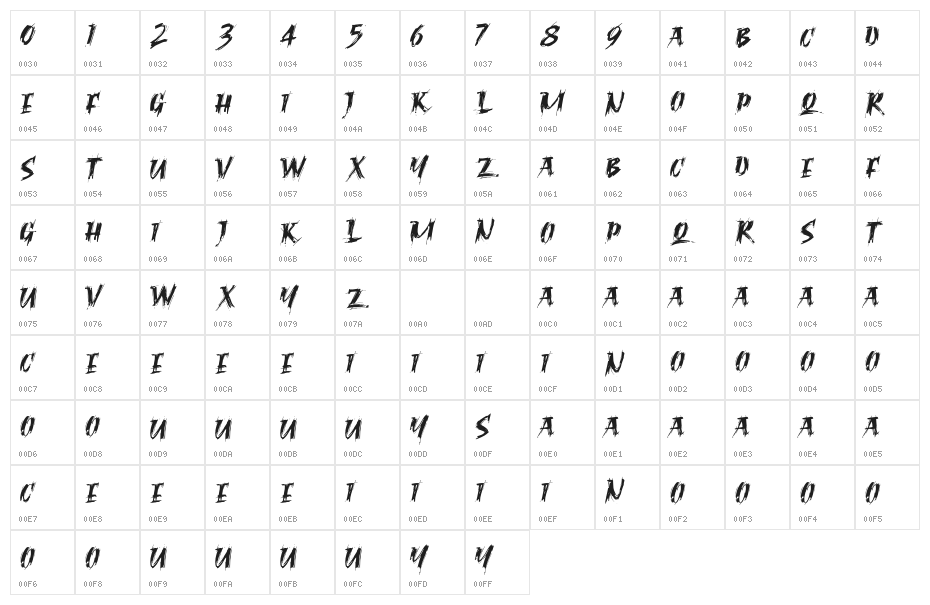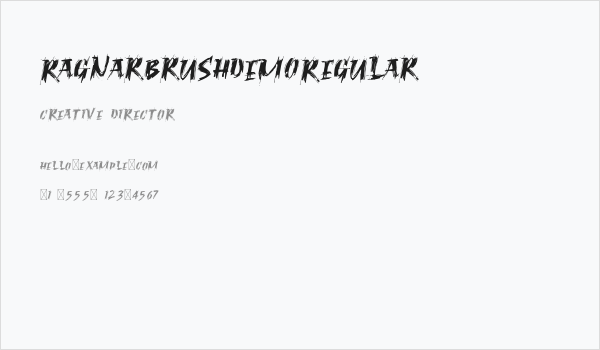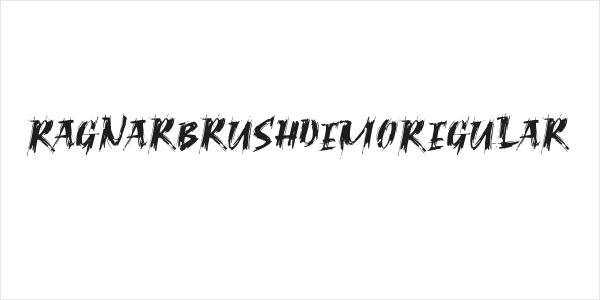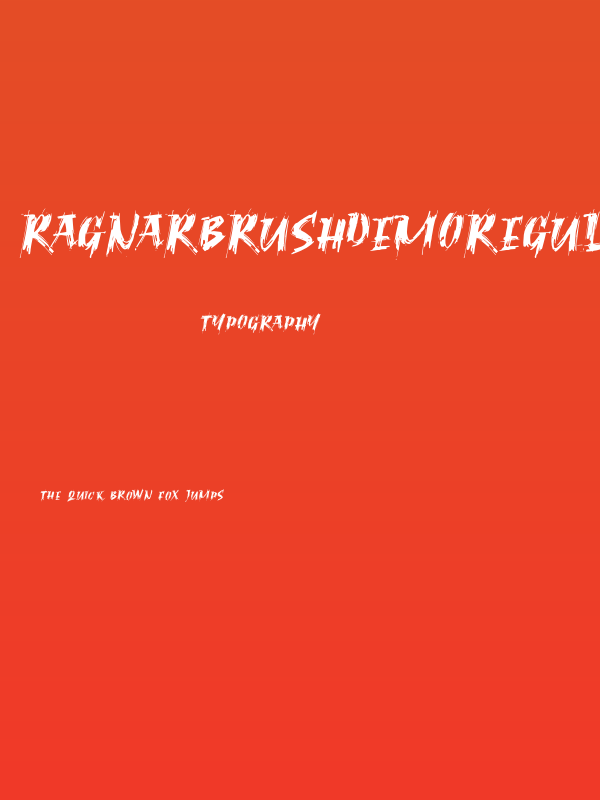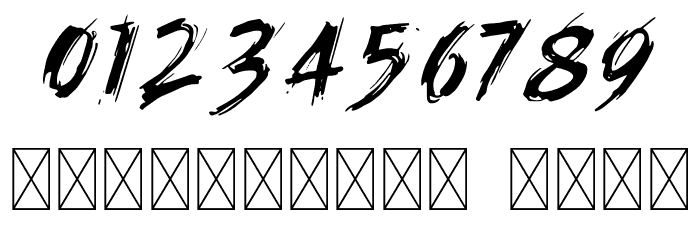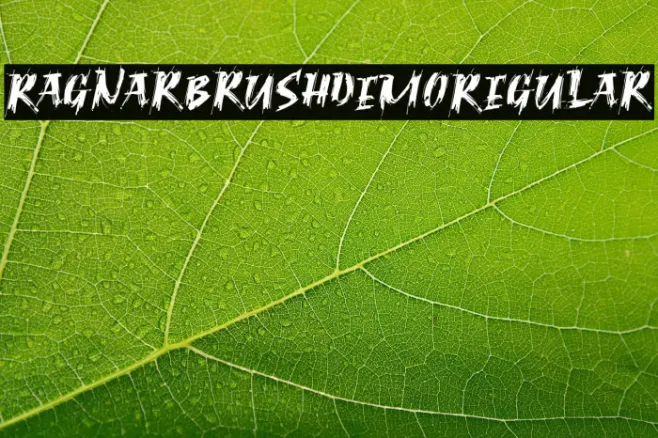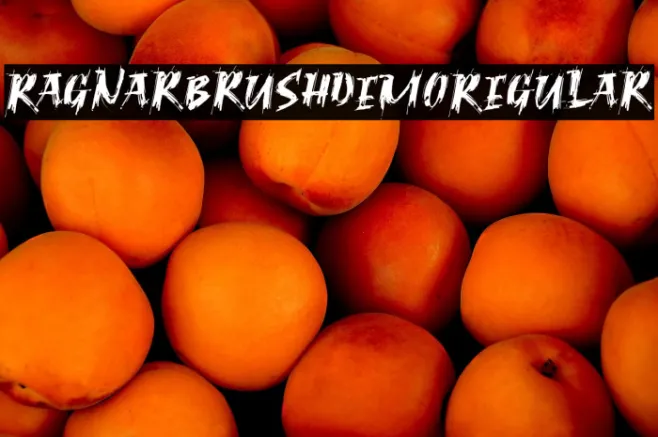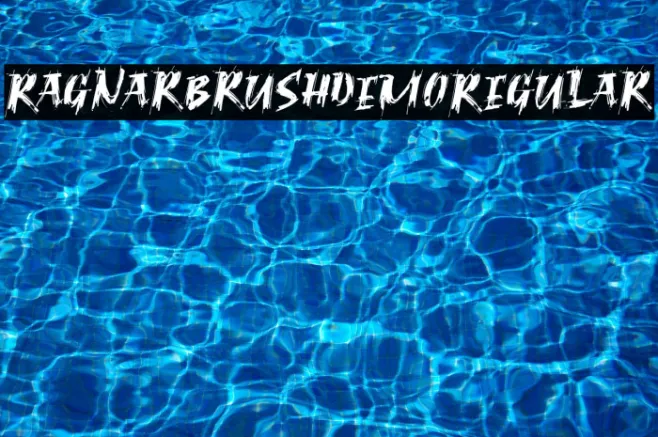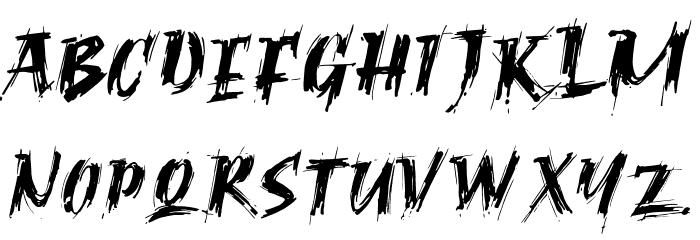
RagnarBrushDEMORegular Font
RagnarBrushDEMORegular Description
This font exudes a raw, energetic vibe with its brush-like strokes and jagged edges. Each character appears as if it has been painted with a swift, bold motion, giving it a dynamic and aggressive appearance. The uppercase and lowercase letters maintain a consistent style, with sharp angles and irregular lines that suggest movement and intensity. The numbers follow the same aesthetic, ensuring a cohesive look across all characters. The special characters are equally expressive, adding to the font's overall impact. This font is ideal for projects that require a strong, eye-catching display, such as posters, album covers, or branding for edgy, modern products.